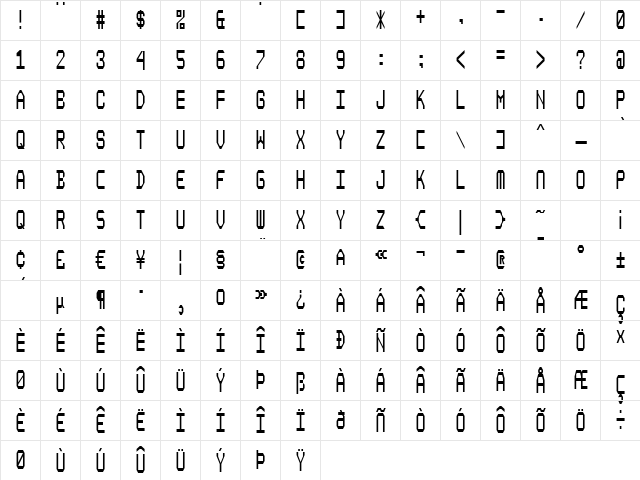
Composite Regular
| Foundry | YouWorkForThem |
| Designer | Michael Cina |
Design Context for Composite Typeface
Composite offers clean, dependable letterforms without strong stylistic allegiance, making it a practical choice for designers who need flexibility.